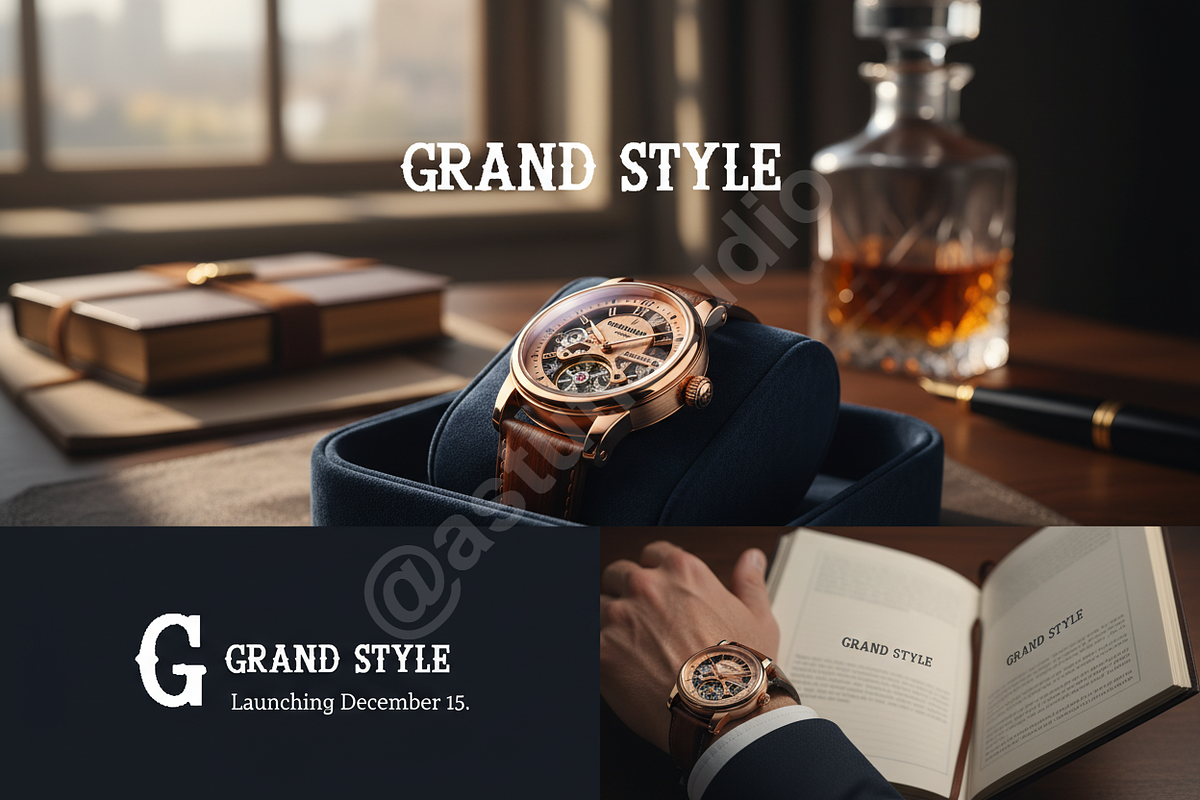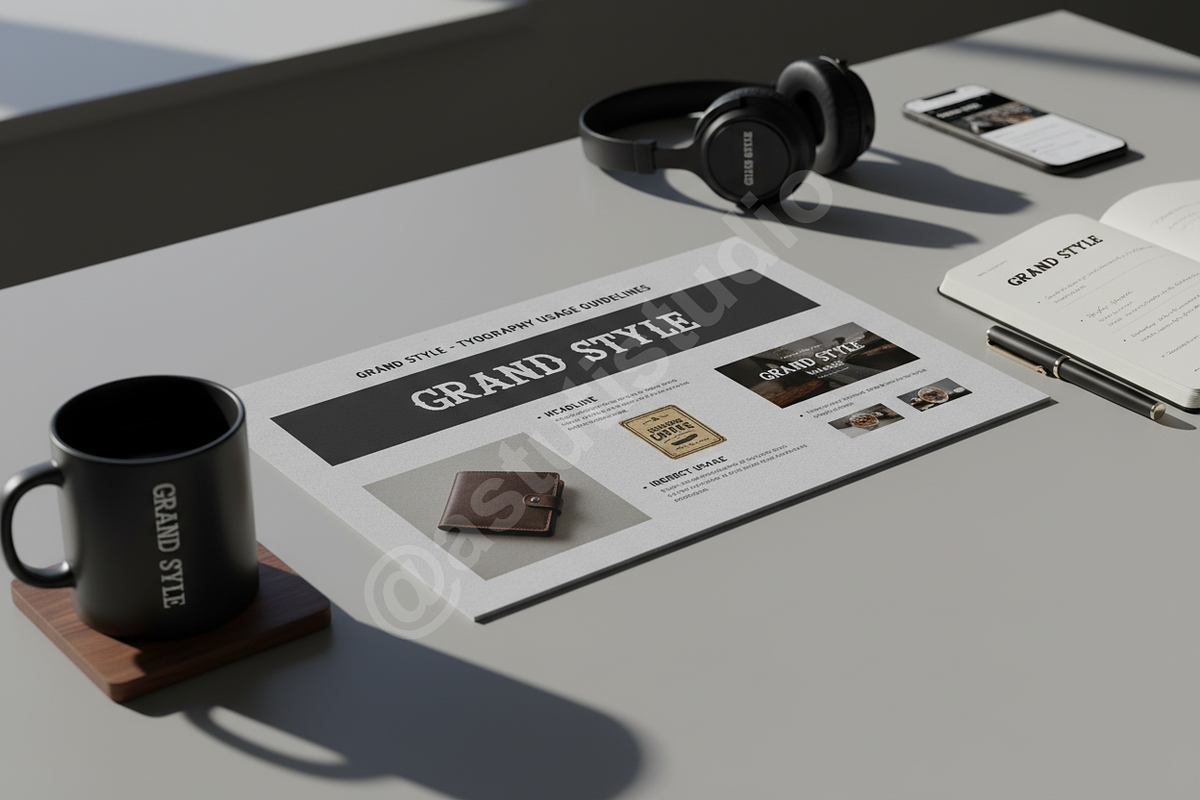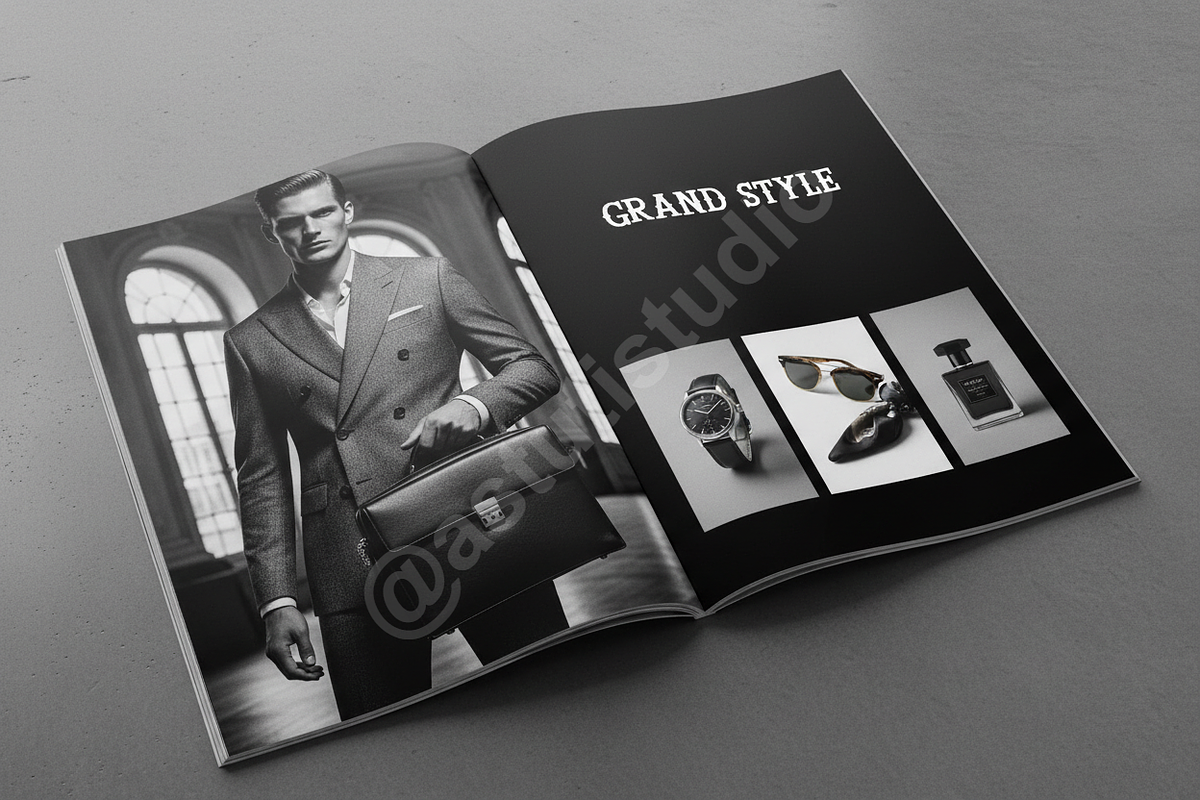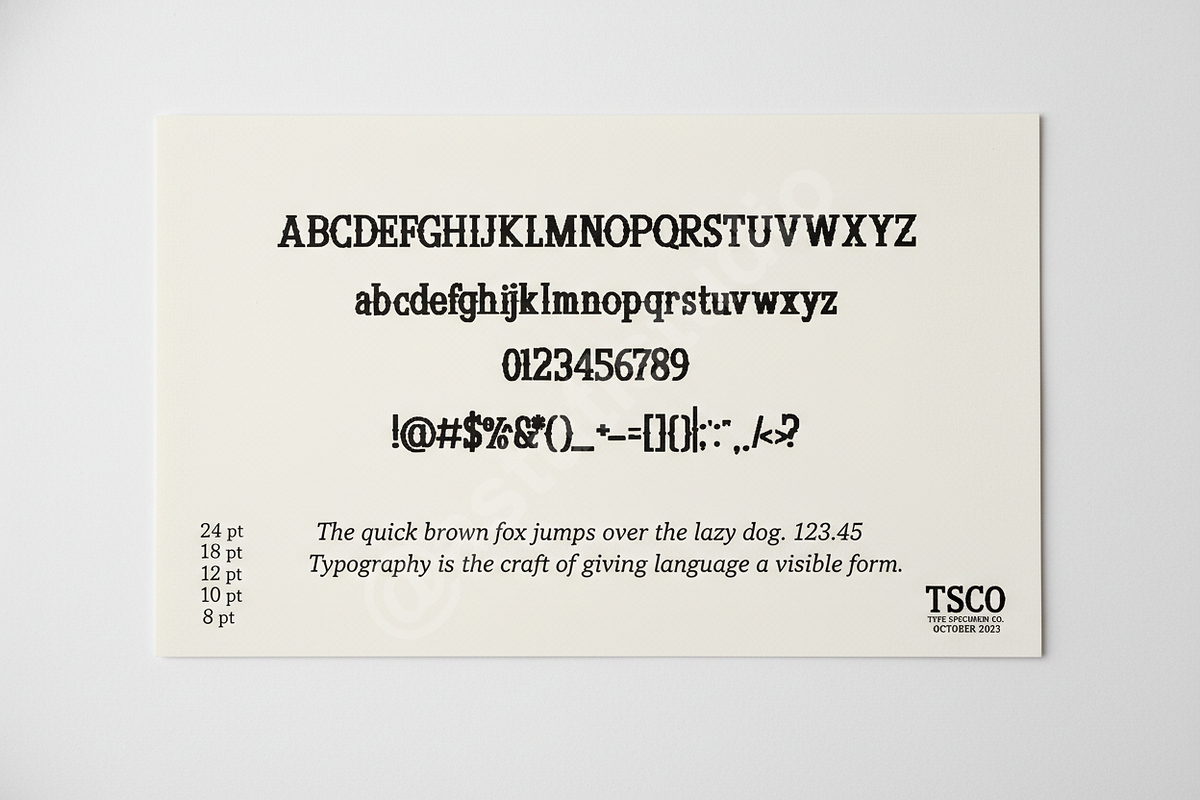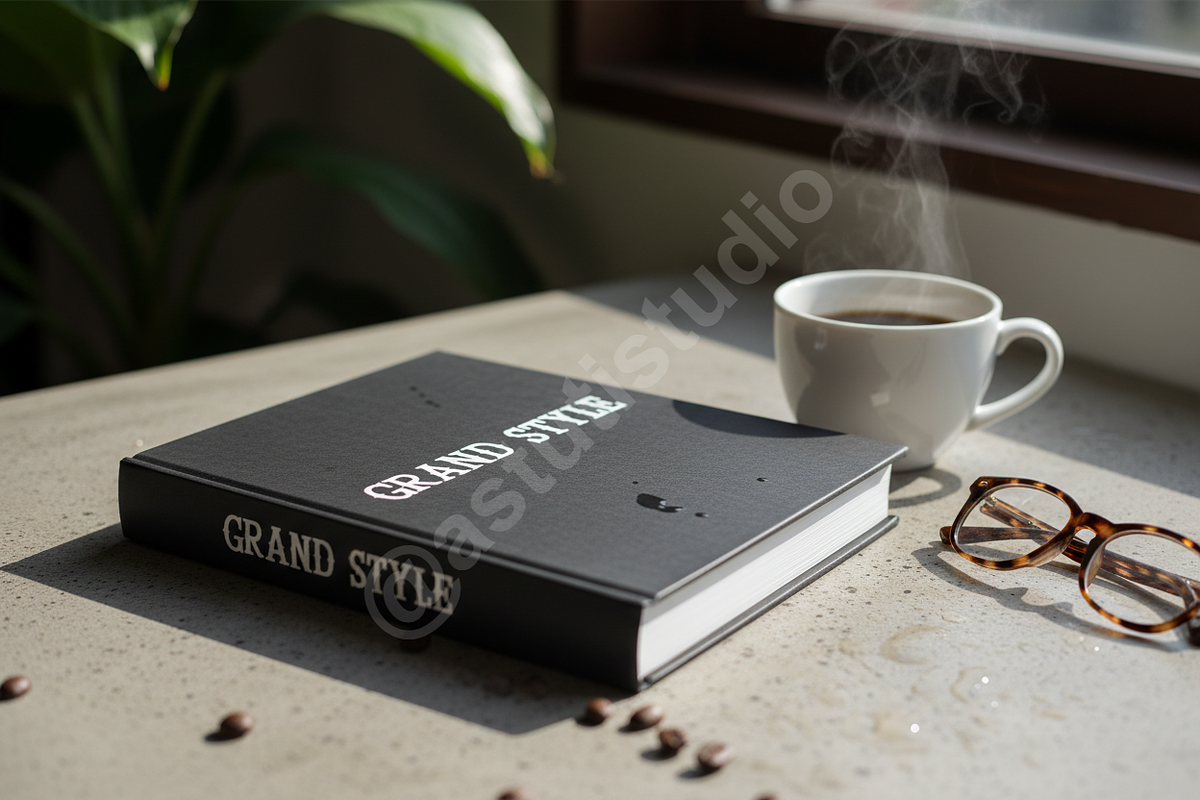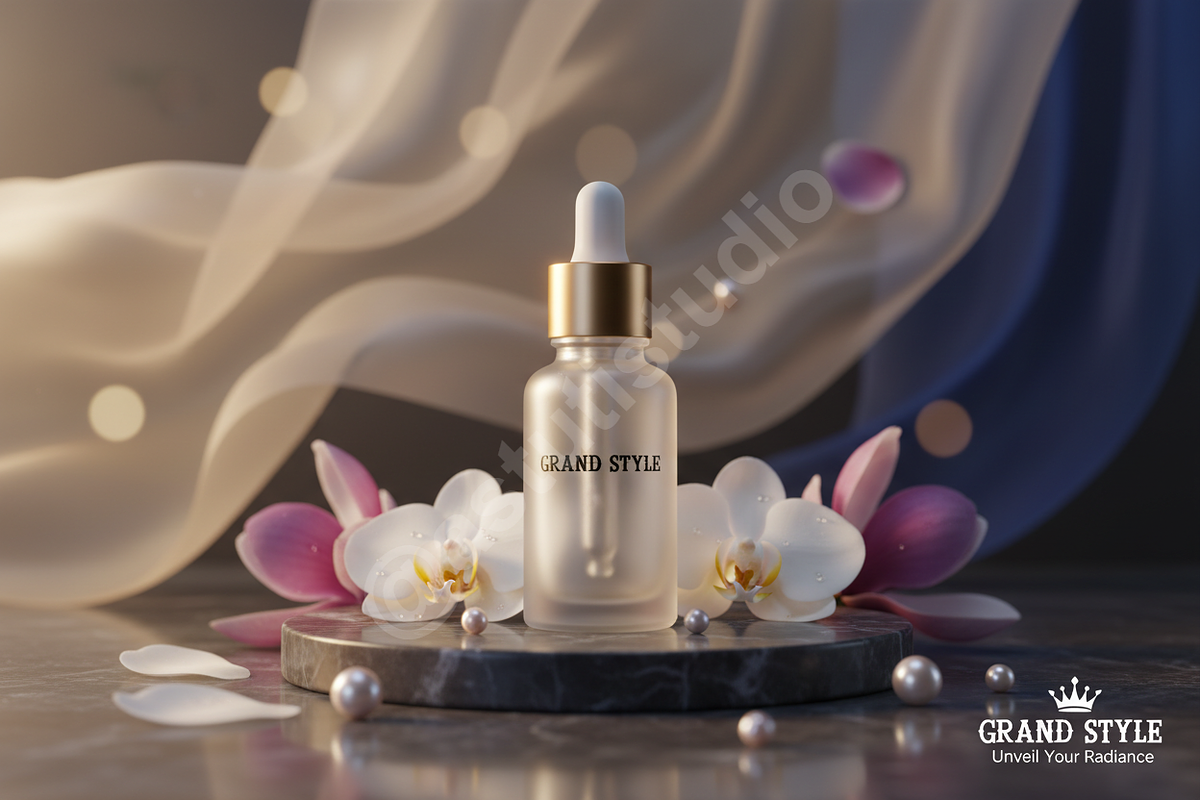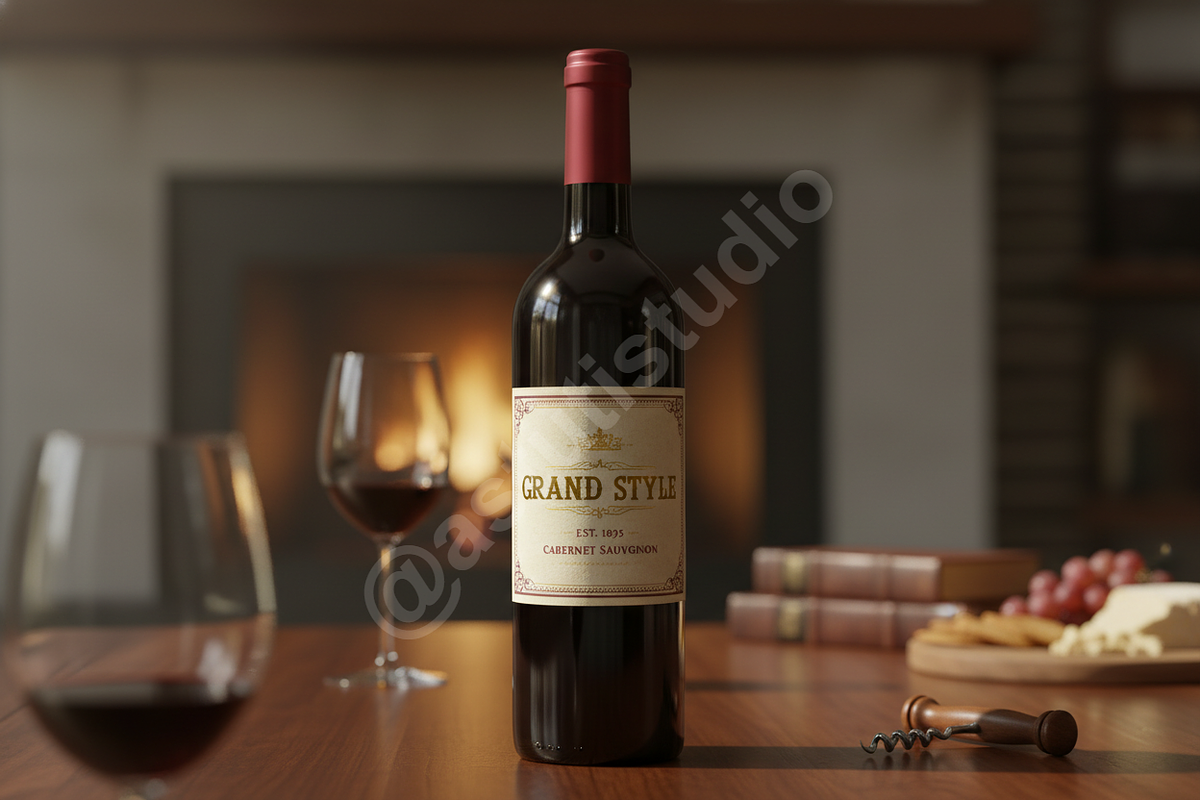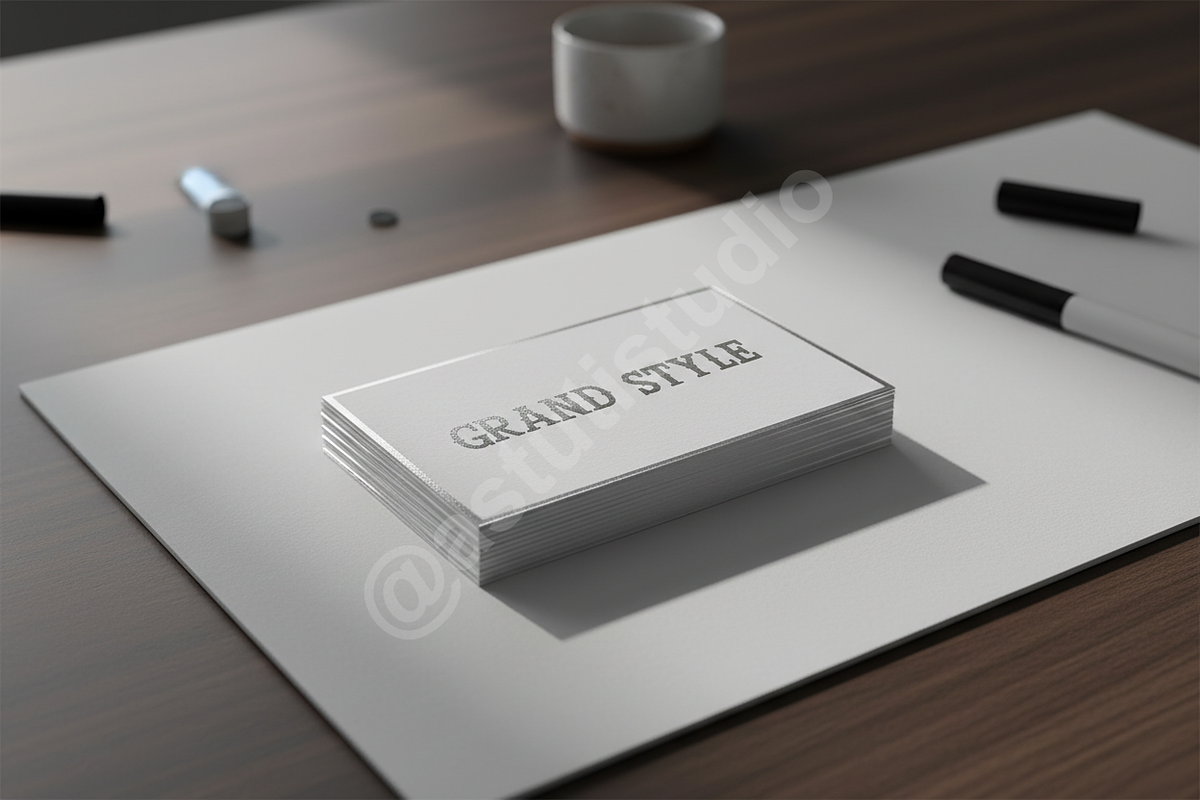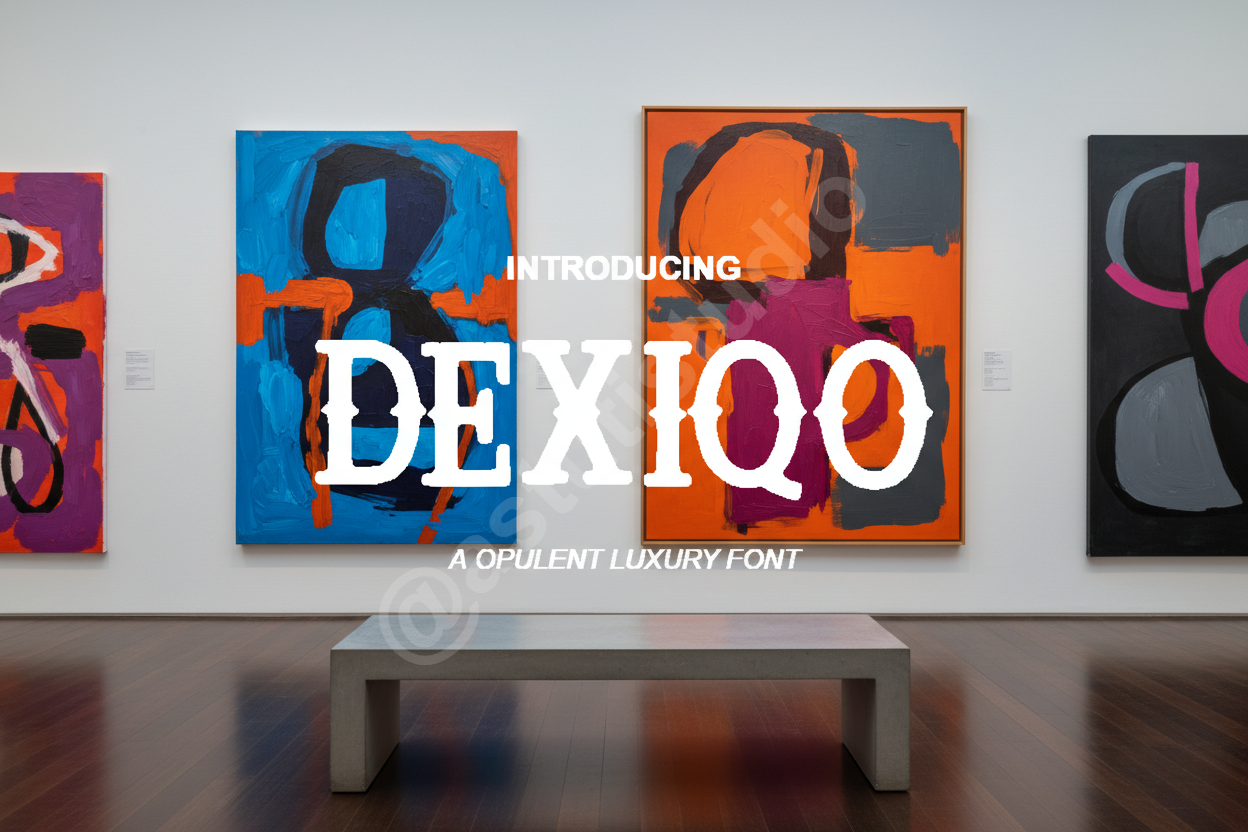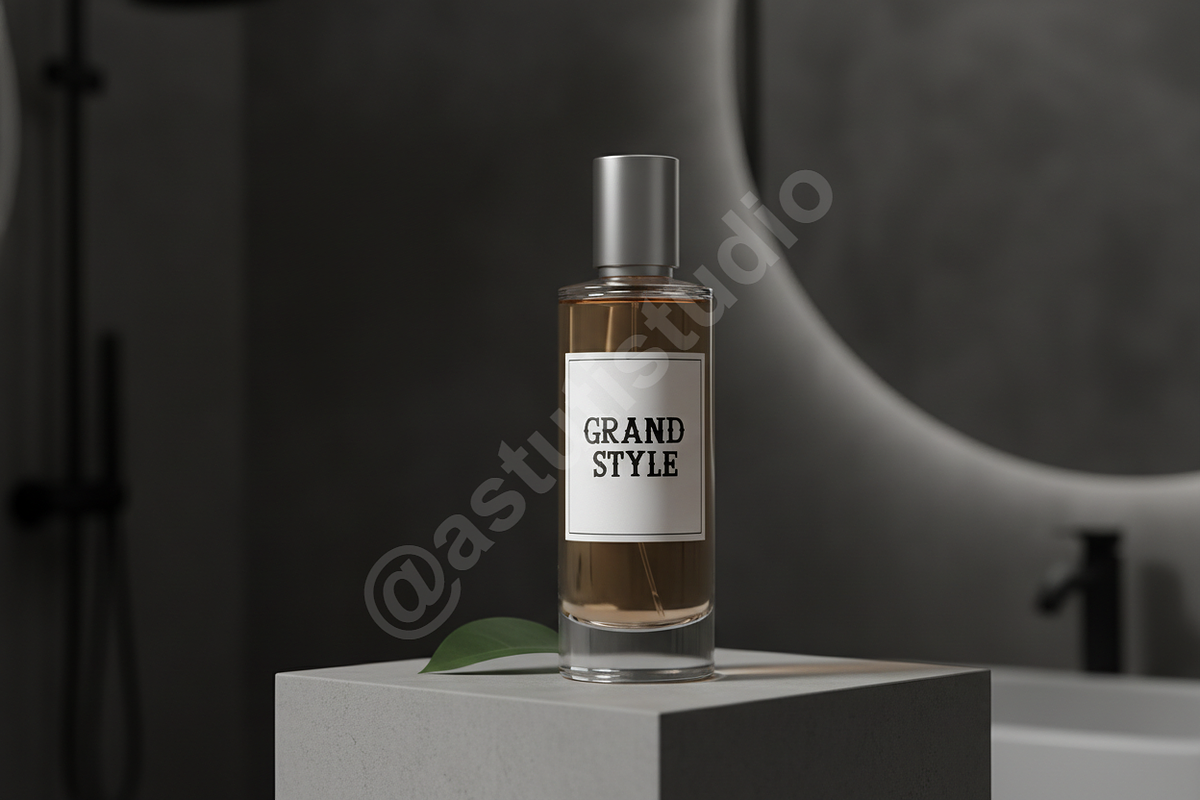
Dexiqo: Luxury Modern Serif Typeface
Welcome the sophisticated artistry of Dexiqo, a modern serif typeface meticulously crafted for high-end creative projects. Dexiqo blends classic elegance with sharp, contemporary lines, offering a typeface that speaks volumes of luxury and refined taste. It is the definitive choice for designers seeking to elevate their brand narratives, ensuring every piece of communication exudes prestige and clarity.
KEY FEATURES
- Opulent Versatility: Ideal for luxury product packaging, fashion editorial spreads, corporate identity systems, and impactful social media campaigns.
- Comprehensive Glyph Set: Supports multiple languages with full Punctuation and Numerals.
- Stylistic Alternates: Includes unique ligatures and alternate characters to customize and refine your designs.
- Optimized Kerning: Professionally spaced for seamless readability across both print and digital mediums.
- Full set of Uppercase and Lowercase characters
- Numerals, Punctuation, and Multilingual Support